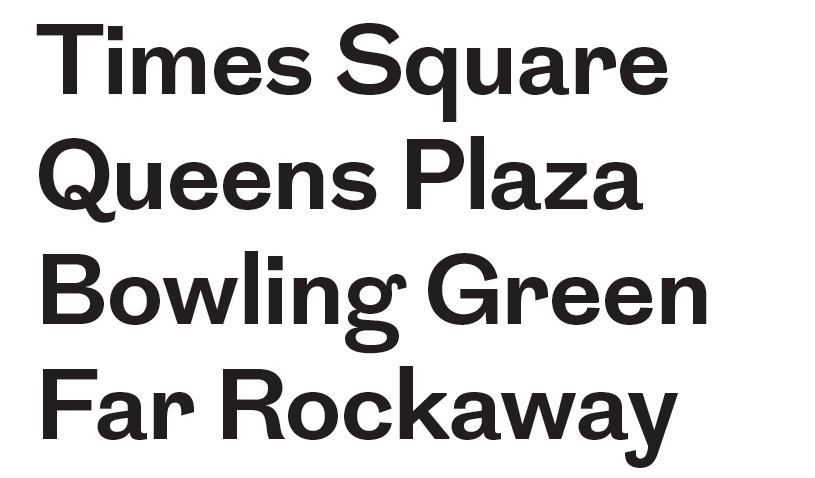
Grot10 Font
Grot10 Font is perfect for modernist branding projects, industrial design applications, architectural firm identities, minimalist editorial layouts, contemporary web typography, technical documentation, urban planning materials, and progressive advertising campaigns. This striking typeface works exceptionally well in both digital applications and print media where functional aesthetics and systematic design principles are fundamental requirements.
What makes Grot10 Font so exciting is its masterful interpretation of classic grotesque typography with contemporary refinement that creates a powerful balance between industrial heritage and modern sophistication. The font features bold, uncompromising letterforms with systematic proportions, clean geometric construction, and utilitarian character that communicates strength, reliability, and professional competence. Its distinctive personality and modernist heritage make it ideal for brands seeking to establish authority in technical fields while appealing to audiences who value functional design and systematic thinking.
The Grot10 Font family includes comprehensive weight variations from light to ultra-bold, along with condensed styles and systematic alternates. Each style maintains the typeface's grotesque character while offering extensive multilingual support, technical numerals, industrial-focused punctuation marks, and special characters designed to enhance professional communications and international technical applications.
This remarkable typeface represents the perfect evolution of grotesque typography adapted for contemporary professional applications. Whether you're developing engineering firm identities, creating architectural presentations, or designing industrial marketing materials, Grot10 Font Free Download delivers the systematic reliability and versatility needed to communicate technical expertise effectively. The font's industrial aesthetic makes it particularly effective for manufacturing companies, architectural studios, engineering consultancies, and organizations emphasizing functional excellence and systematic approaches.
The precisely engineered letterforms and optimized performance in Grot10 Font ensure consistent professional quality while maintaining its distinctive grotesque character. Its robust construction makes it ideal for both detailed technical specifications and bold industrial branding where its full systematic personality can establish immediate credibility with professional audiences seeking reliability, competence, and functional design solutions.